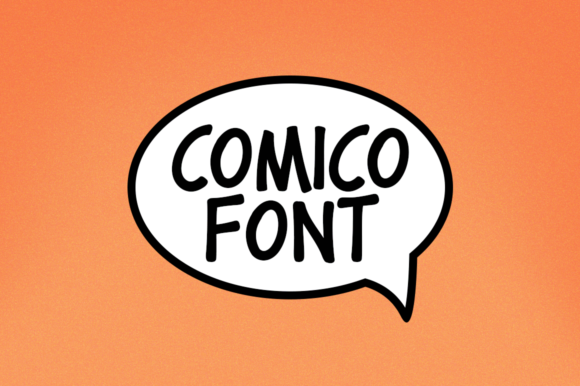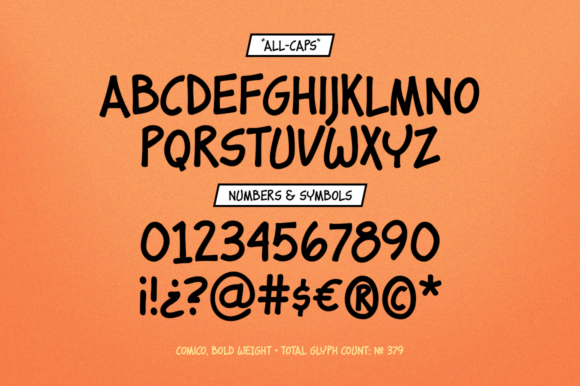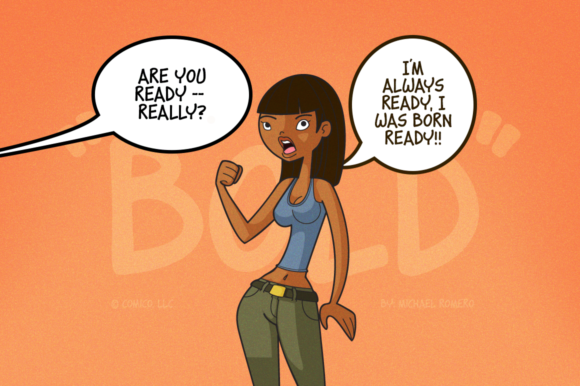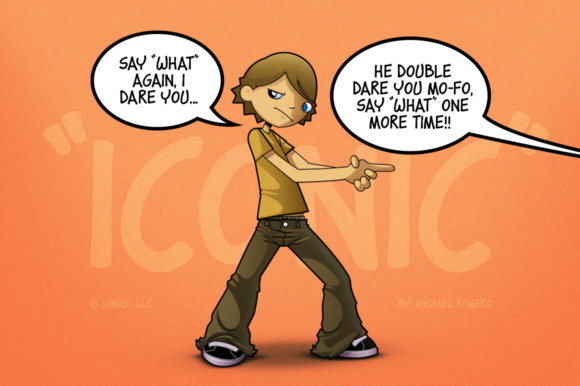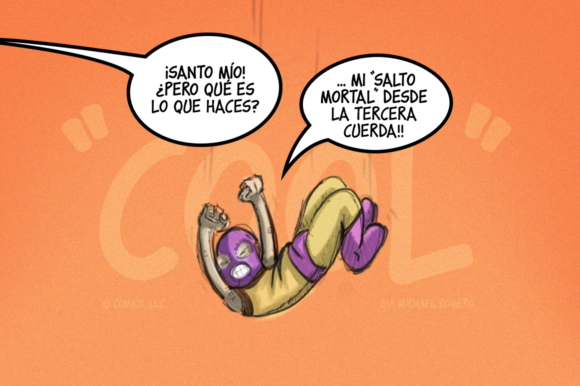
Comico Font
About Comico Font
Introducing Comico, a charming and versatile handwritten font that brings an authentic and personal touch to your designs. This font is perfect for creating chalkboard quotes, teaching materials, and any project that requires a genuine and realistic feel.
Comico features a simple and natural handwritten style that captures the essence of a chalkboard or handwritten notes. Its clean and legible letterforms make it easy to read, ensuring that your message is conveyed clearly. The imperfect edges and subtle variations in stroke thickness add to the authenticity and organic feel of the font.
With Comico, you can effortlessly create chalkboard-inspired designs, whether it’s for educational purposes, inspirational quotes, or decorative elements. The font’s versatility allows it to be used in a variety of contexts, from classroom materials to social media graphics and beyond.
The handcrafted look and feel of Comico make it a great choice for creating a personal and down-to-earth atmosphere in your designs. It brings a sense of warmth and approachability, making your audience feel connected and engaged. Whether you’re designing for educational purposes or simply want to add a touch of nostalgia and charm, Comico is the perfect companion.
In summary, Comico is a simple and charming handwritten font that adds an authentic and personal touch to your designs. Whether you’re creating chalkboard quotes, teaching materials, or any project that requires a genuine and realistic feel, Comico is the ideal choice. Let Comico bring a personal and realistic touch to your designs and create a connection with your audience.